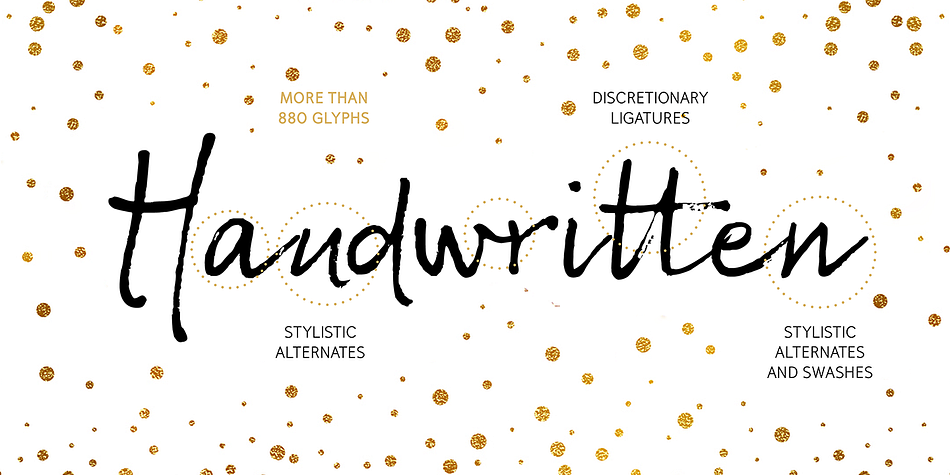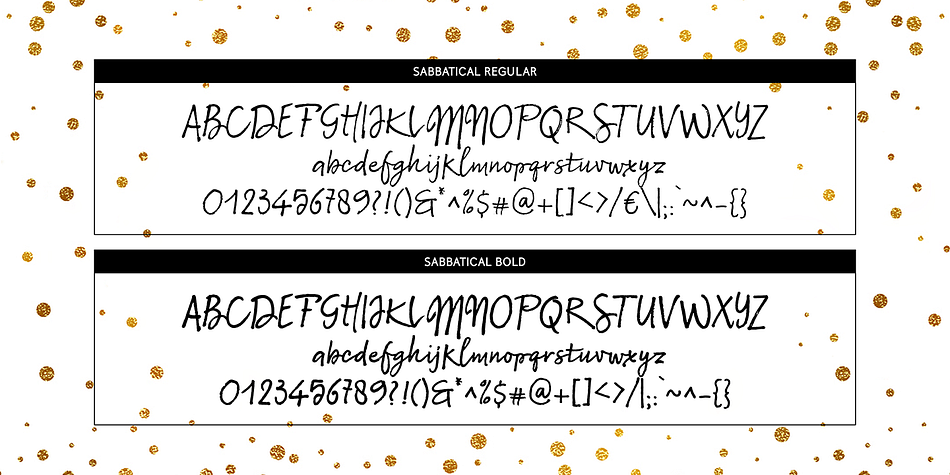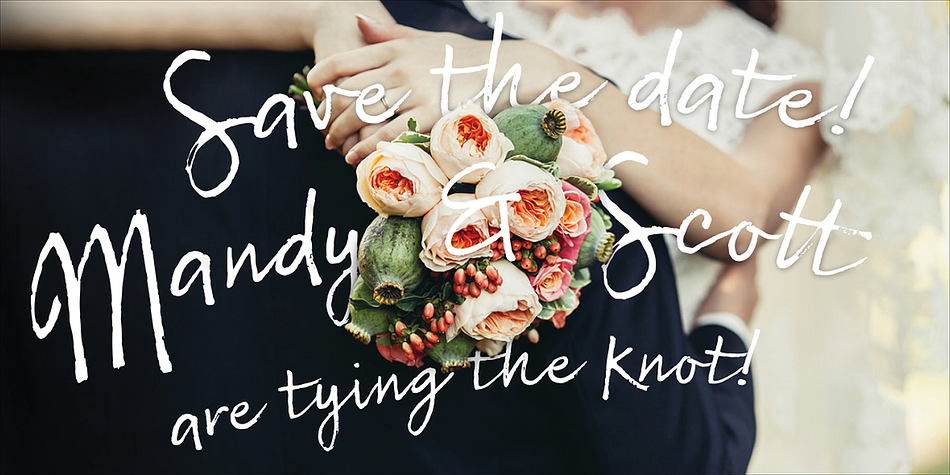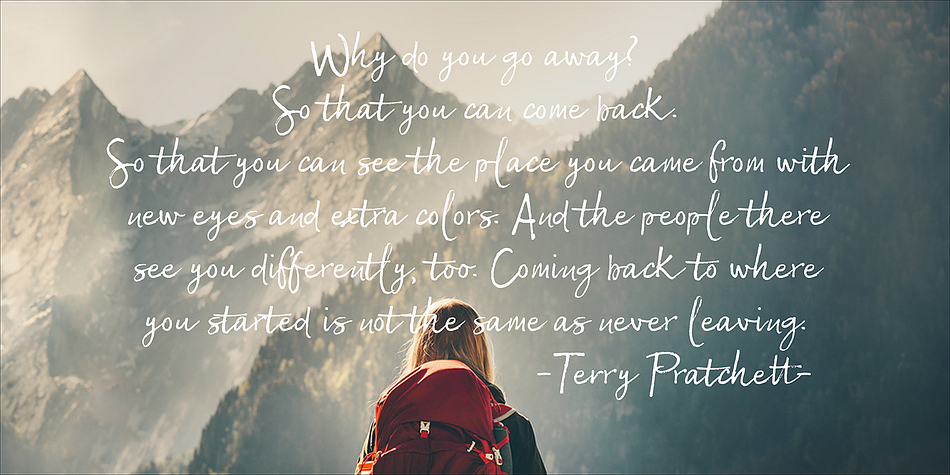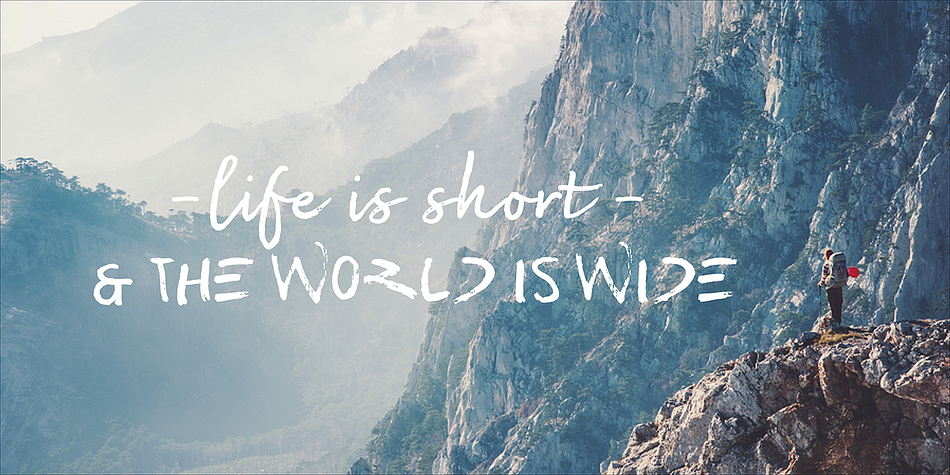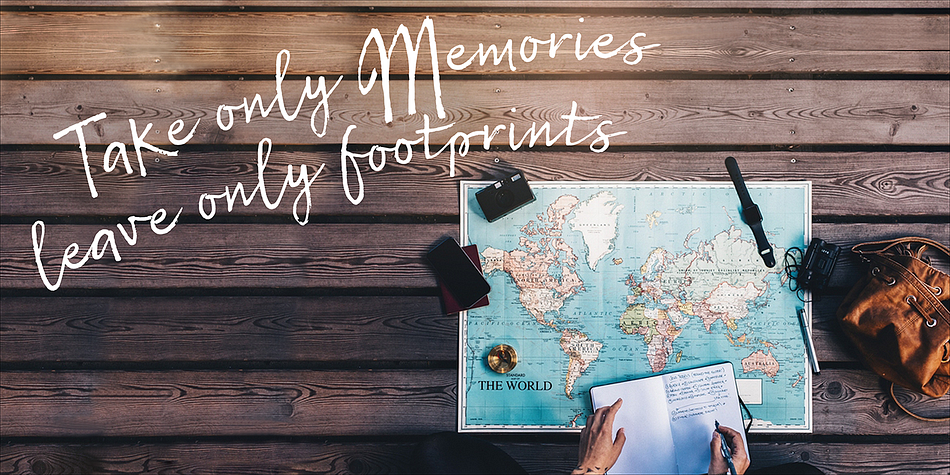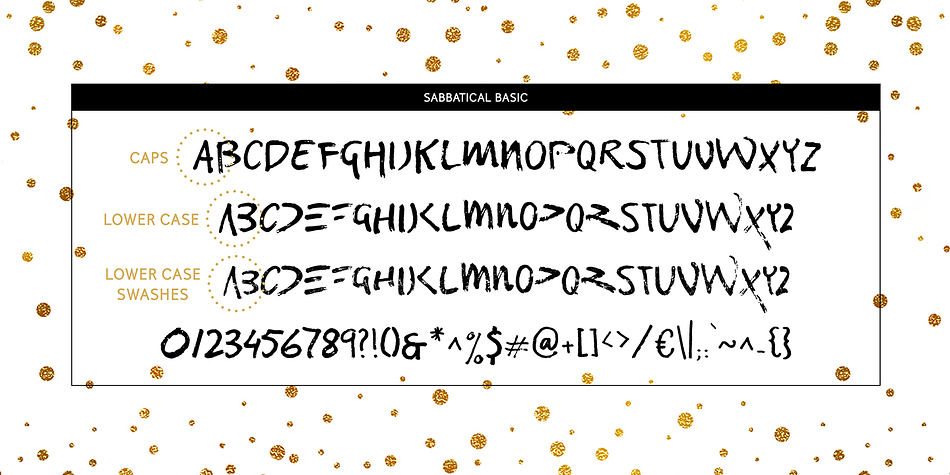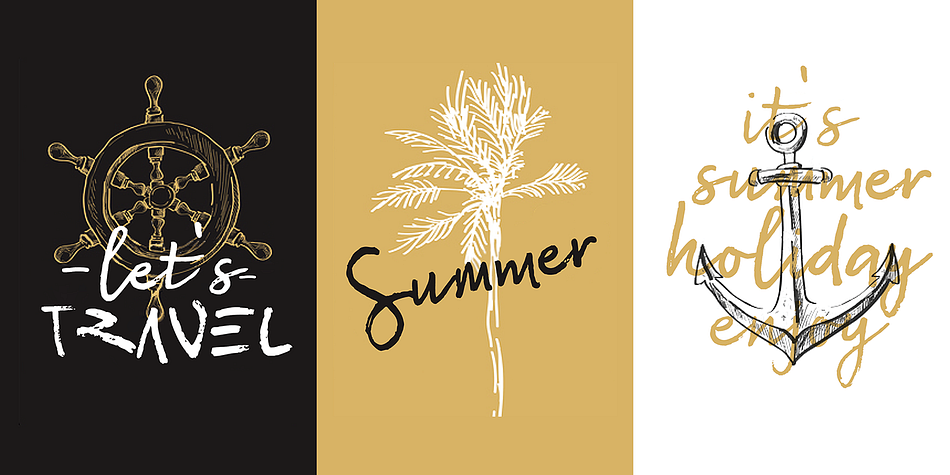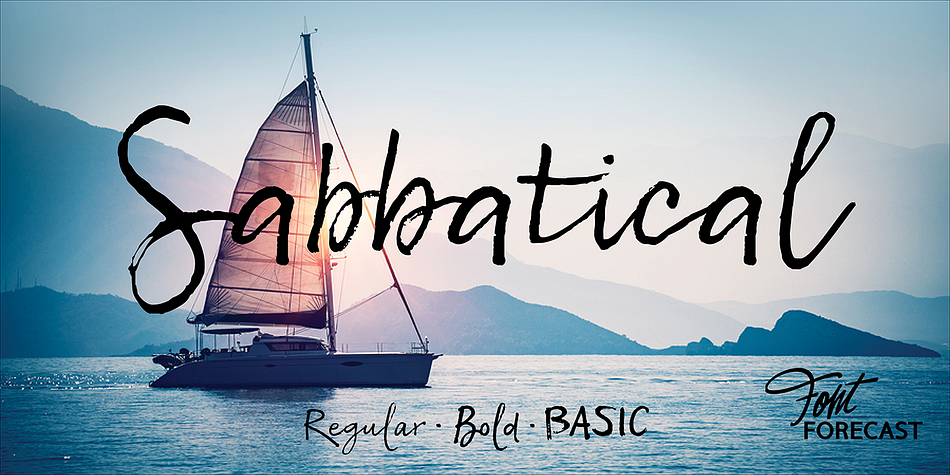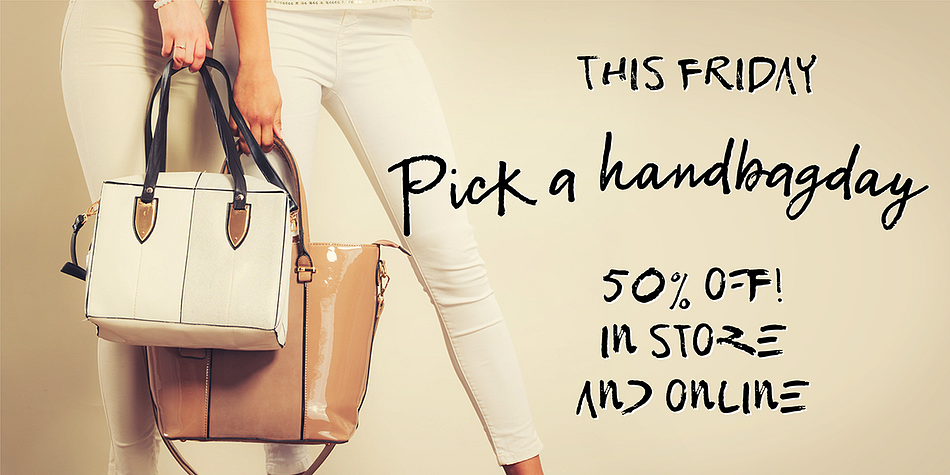
Designed by Hanneke Classen, Sabbatical is a hand drawn, script and hand display font family. This typeface has three styles and was published by Fontforecast.
Sabbatical is a no nonsense brush font family with lots of character. The family contains 3 hand lettered fonts, Regular, Bold and Basic.
This dry textured script font is inspired by travel journals written by adventurous souls, hence the name. The design is perfect for any Type-based creations, quotes, invites, packaging, branding and much more!
The Sabbatical Basic has his own unique form which compliments the Sabbatical Regular and Bold. It consists of a fun Caps font with an even more playful variation.
All Sabbatical fonts have alternate glyphs that can either be accessed by the swashes feature, stylistic sets, or the glyphs panel, depending on the application you are using. There are lots of discretionary ligatures that offer more variation. With over 880 glyphs the design options are unlimited.